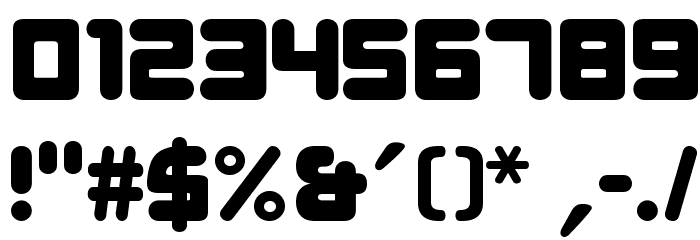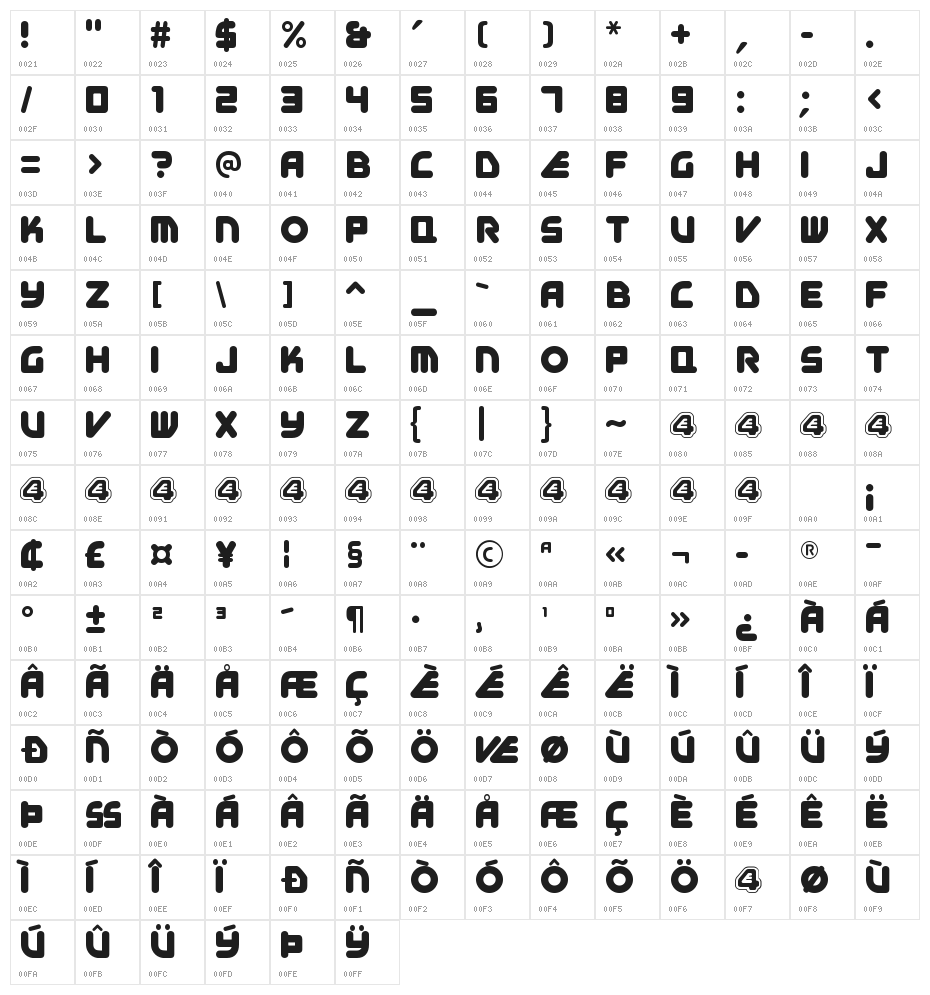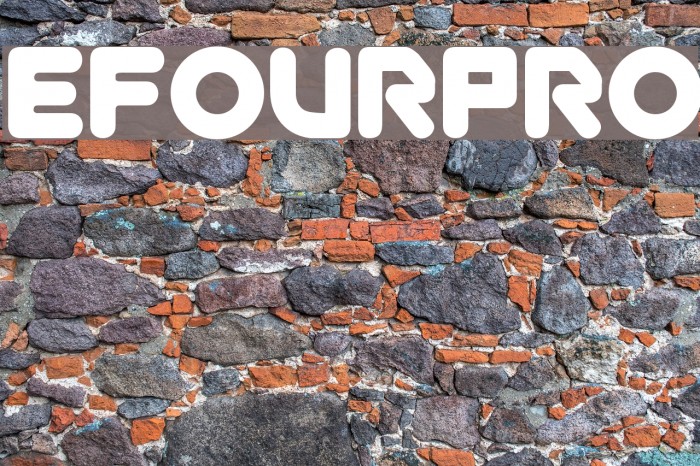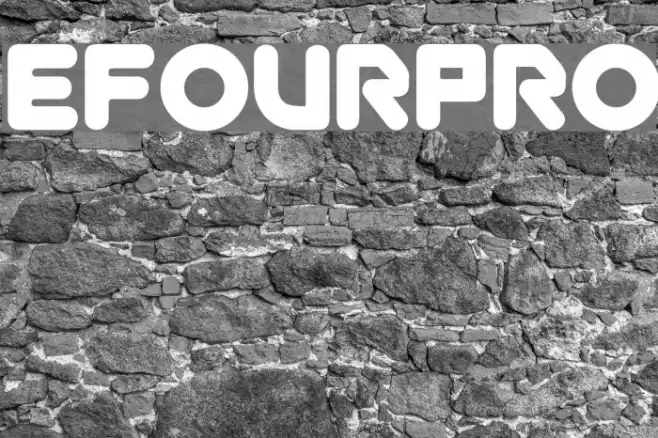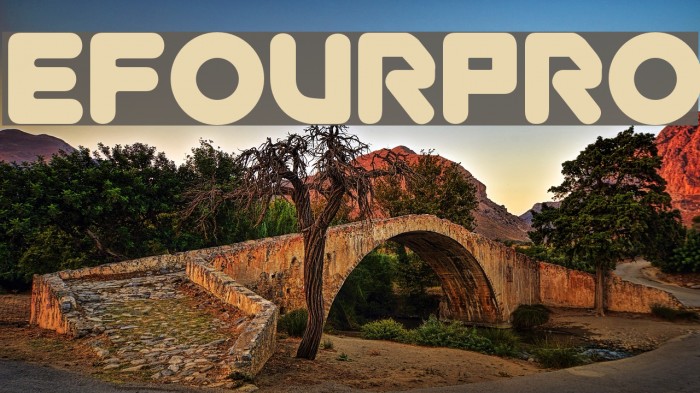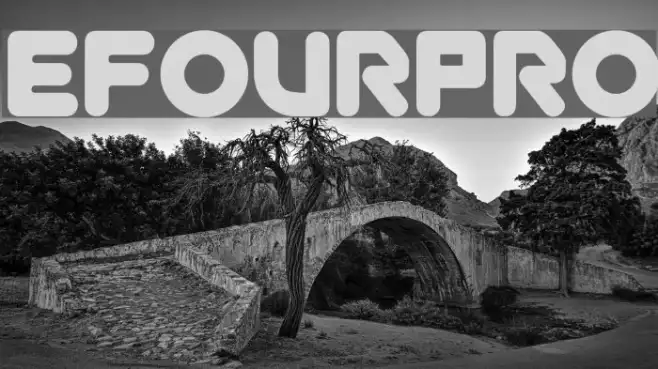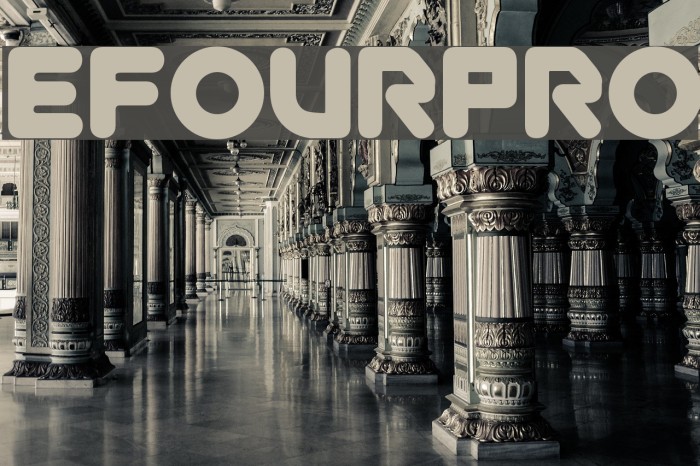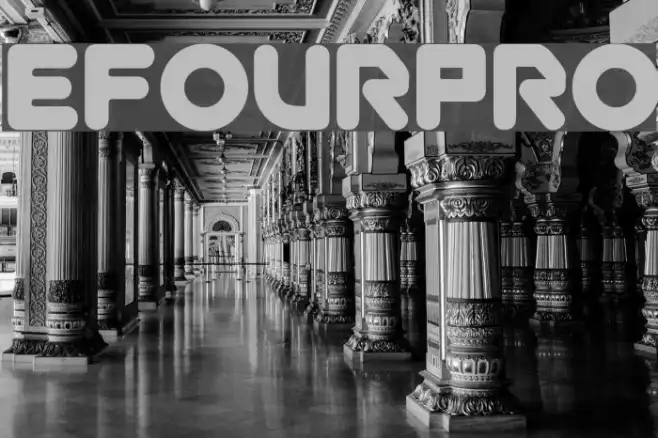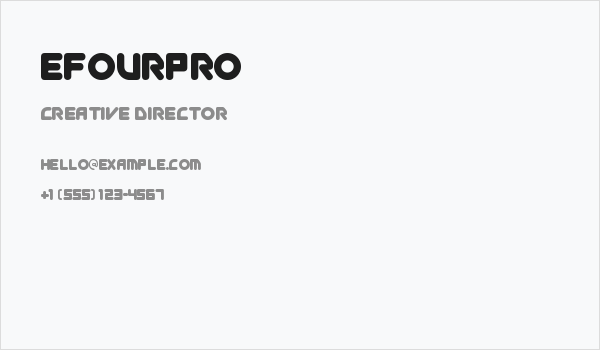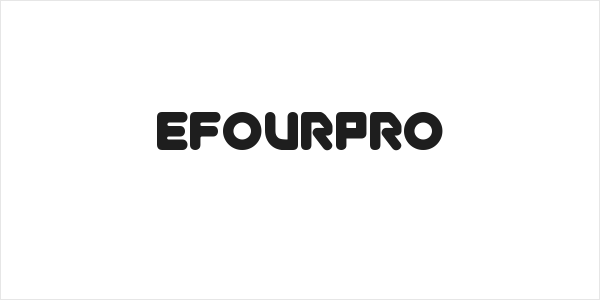
This font features a bold, geometric style with rounded edges, giving it a modern and futuristic appearance. The characters are uniform in width, contributing to a monospaced feel, although they are not strictly monospaced. The letters have a consistent stroke weight, providing a solid and substantial look. The design includes unique elements such as the slanted crossbar on the 'A' and the distinctive shapes of 'Q' and 'R', which add a playful touch to the overall aesthetic. The numerals and special characters maintain the same boldness and rounded style, ensuring consistency across all glyphs. This font is highly legible and makes a strong visual impact, suitable for various design applications.
| Proposed Projects | Ideal for technology branding, video game titles, futuristic posters, and digital interfaces. |